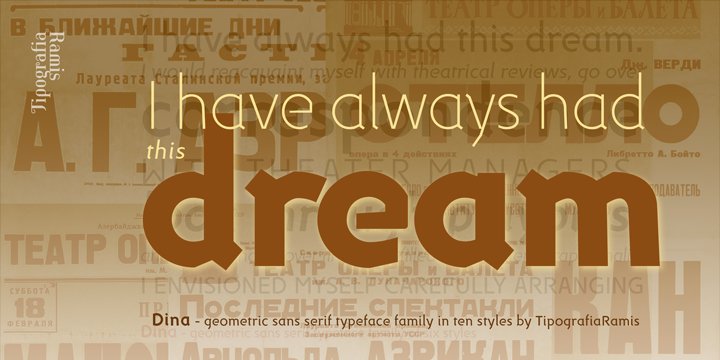
Dina
Design Credits
Designed by: Ramiz Guseynov
Designed when: 2008
Design owned by: TipografiaRamis
Dina
The shapes of the letters are based on a combination of straight and circular elements. Subtle details become visible at large sizes—angular baseline terminals, notched bowls (d, g, p...), sheared off curves (c, s...)—that give strong personality to the entire font.
The typeface is ideal for use in display sizes though is quite legible in text.